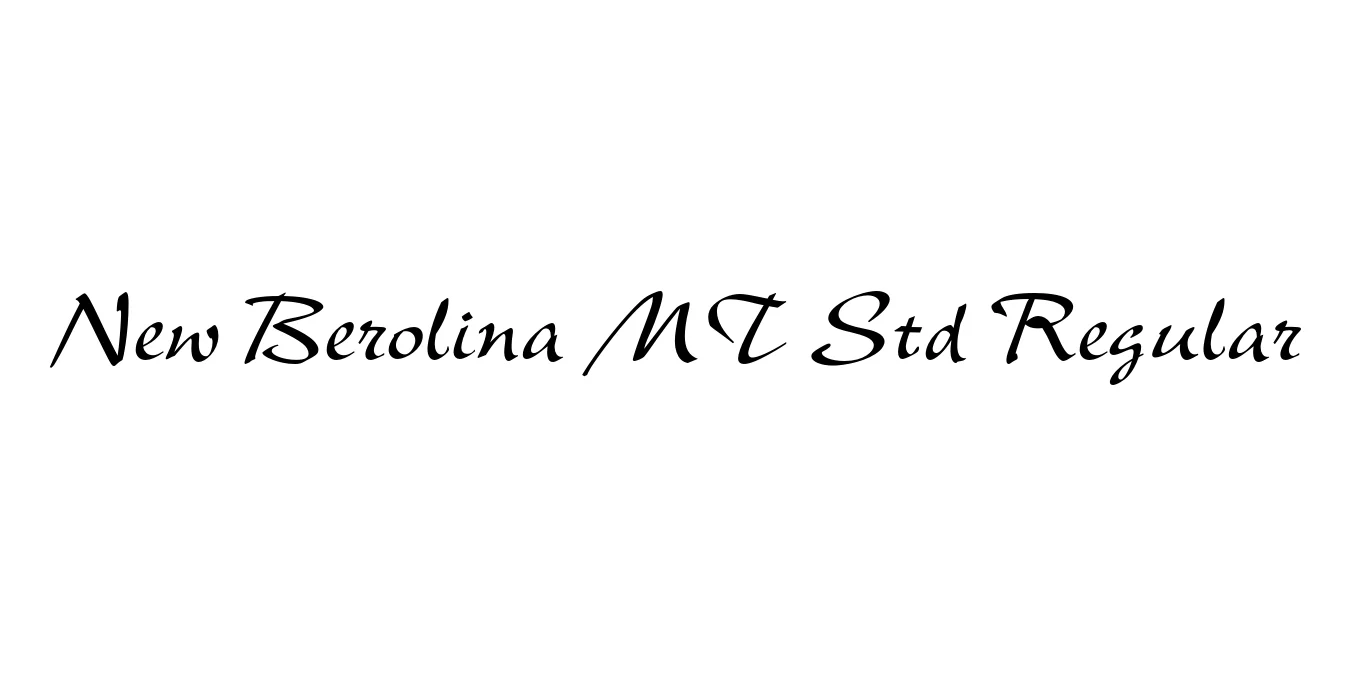
New Berolina MT Std Regular
Designed by Monotype Design Studio
New Berolina MT Std Regular is a sophisticated calligraphic typeface that traces its origins back to the mid-20th century. Originally designed by Heinz Schumann for the Typoart foundry in the former East Germany, it was later refined and digitized by Monotype. The font is characterized by its fluid, rhythmic strokes that mimic the natural flow of handwriting, blending the precision of formal script with the warmth of casual penmanship.
This typeface is particularly noted for its elegant swashes and balanced letterforms, making it a staple for projects that require a personal touch without sacrificing legibility. Its timeless appeal allows it to remain relevant in both traditional print media and modern digital design, offering a graceful aesthetic that evokes a sense of artisanal craftsmanship and classical beauty.
New Berolina MT Std Regular Best Uses
Perfect for creating a sophisticated and personal feel for special occasions.
Adds a touch of class to upscale restaurant branding and food listings.
Excellent for conveying heartfelt messages with an artisanal look.
Suitable for boutique brands seeking a refined, hand-crafted identity.